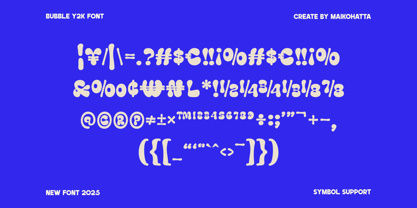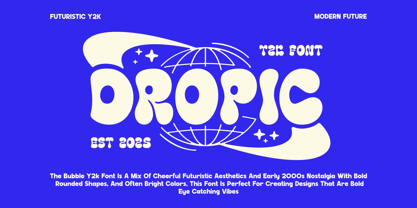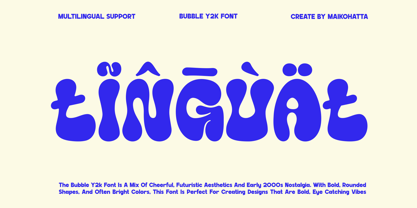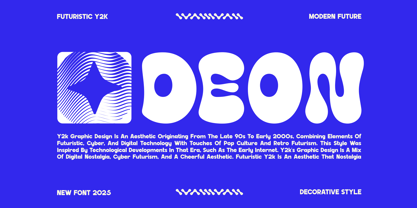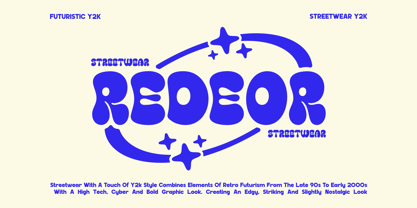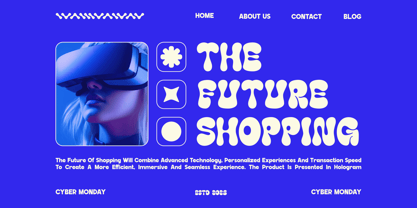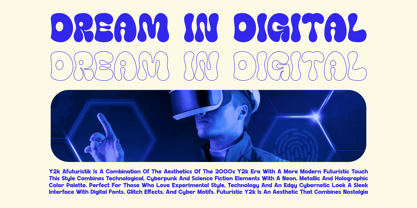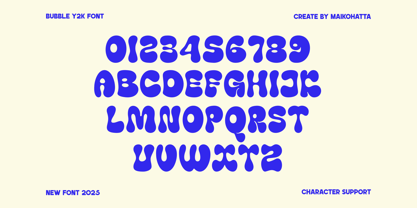
DROPIC
The DROPIC Font Family was designed by Gilang Ternadho and published by Maikohatta. DROPIC contains 1 styles. More about this family
Introducing our new product Dropic - Bubble Y2K Display
Dropic is a visual representation of the Y2K (2000) aesthetic featuring futuristic style, technology, and digital elements from the early 2000's. This font incorporates elements such as old computer displays, pixels, neon, and geometric shapes that are reminiscent of the technological developments of the time.